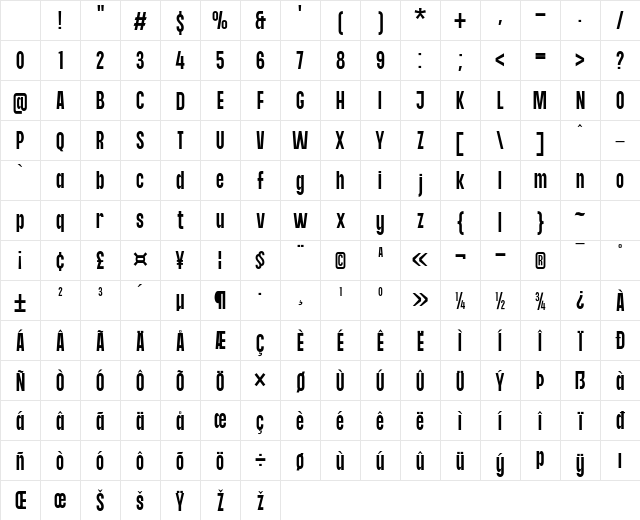
Complete Maneuver Gather Light Regular glyph index. Displaying only characters natively supported by Maneuver Gather Light Regular font.
Maneuver Gather Light is a composed and adaptable typeface that performs quietly and consistently across a wide range of design contexts. Its slender proportions lend an understated elegance to any composition.